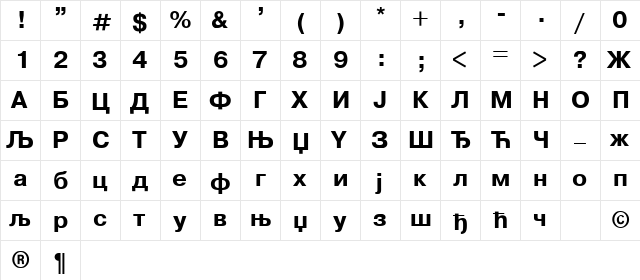
Helvetica-Cirilica Bold
Design Context for Helvetica-Cirilica Typeface
Helvetica-Cirilica takes a measured approach to typography — its balanced proportions and neutral character make it a reliable workhorse for both digital and print work. Its bold stroke weight gives it real presence on the page.